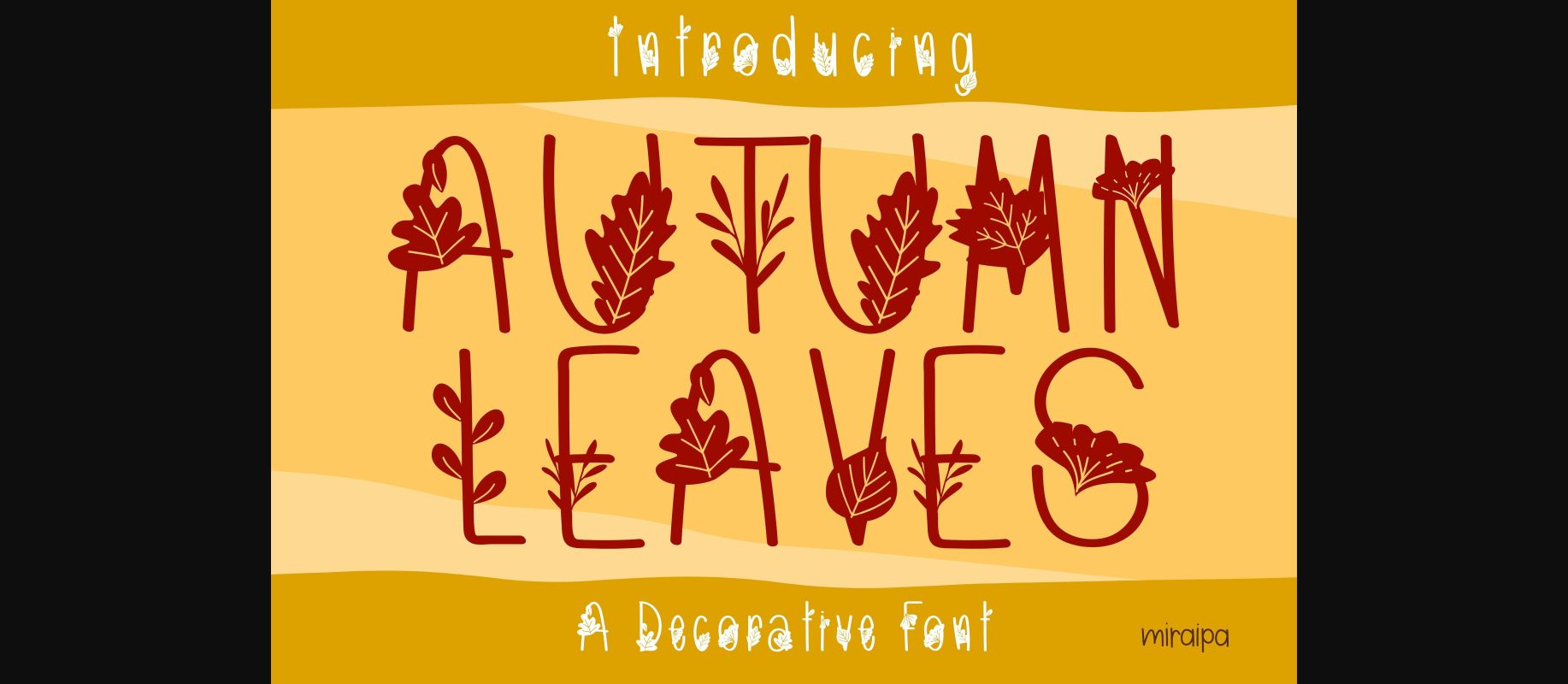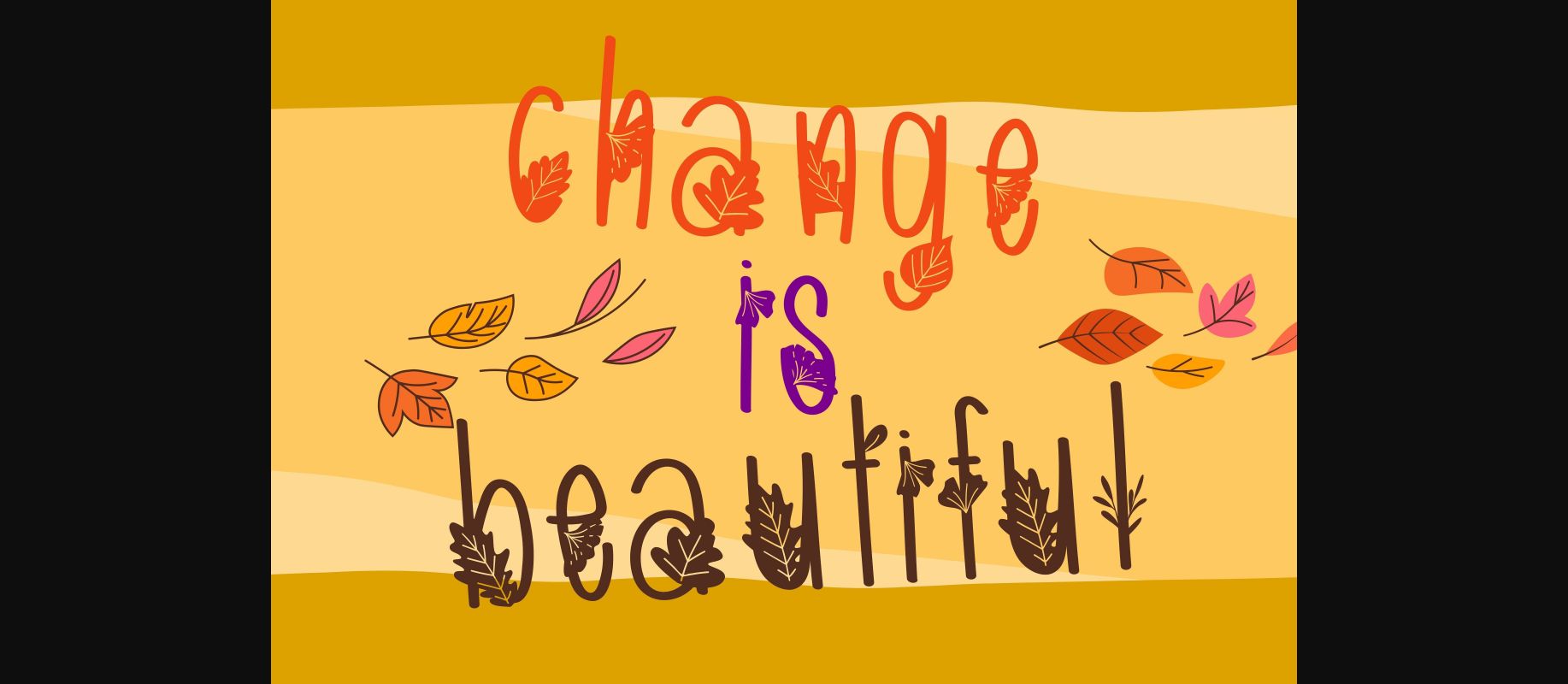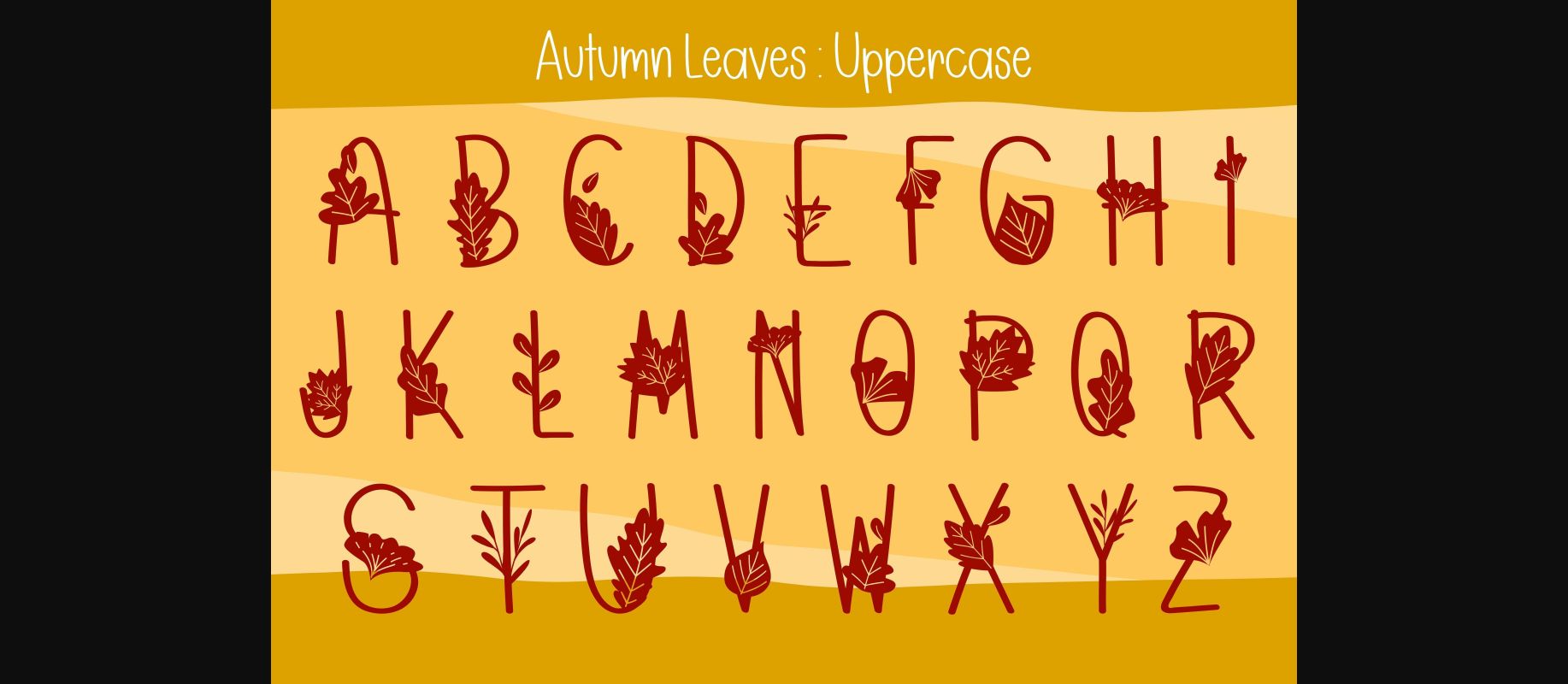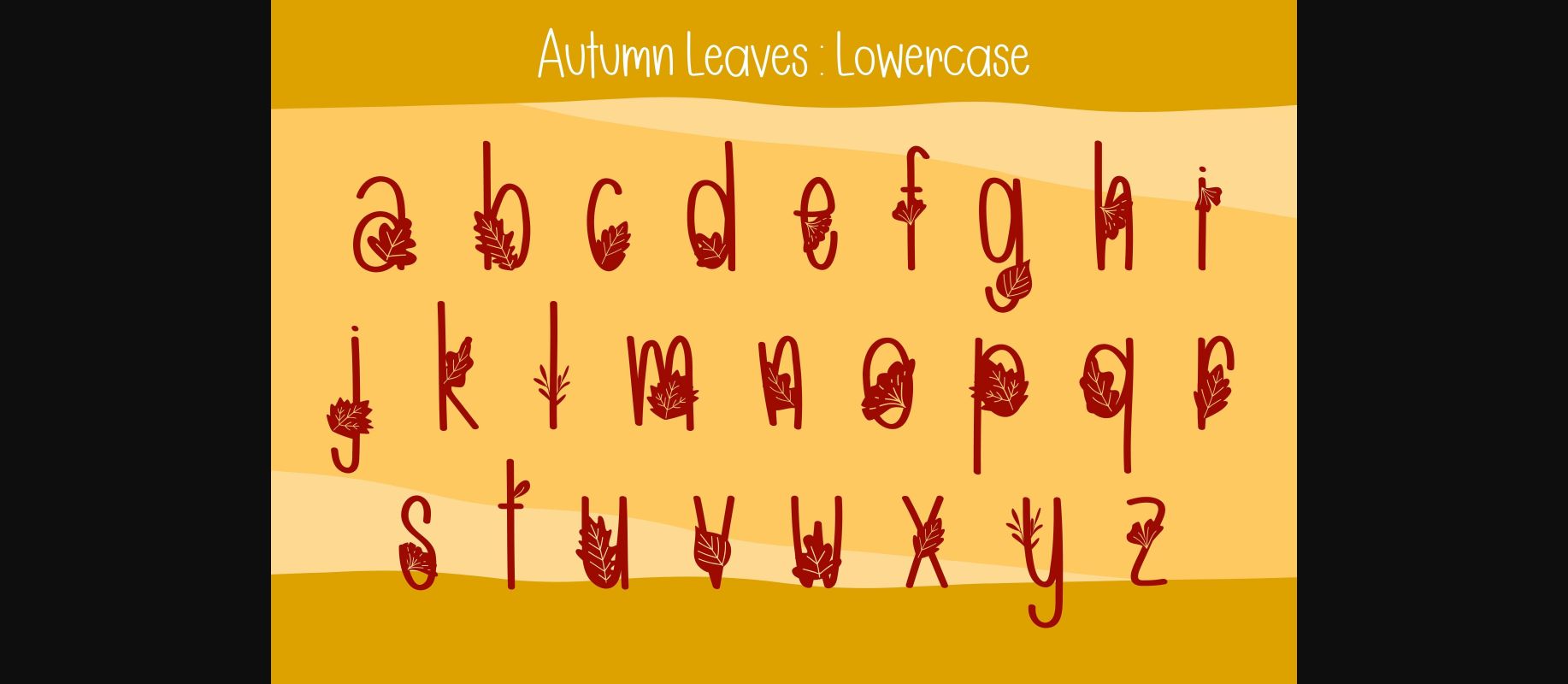
About Autumn Leaves Font
Autumn Leaves is a lovely decorative font. It would be awesome for your autumn-related designs, wedding invitations, back-to-school projects, party decorations, posters, blogs, clothing, greeting cards, social media posts, or anything that needs a friendly touch. Add it now to your fonts library, and it will bring any of your DIY projects to life.